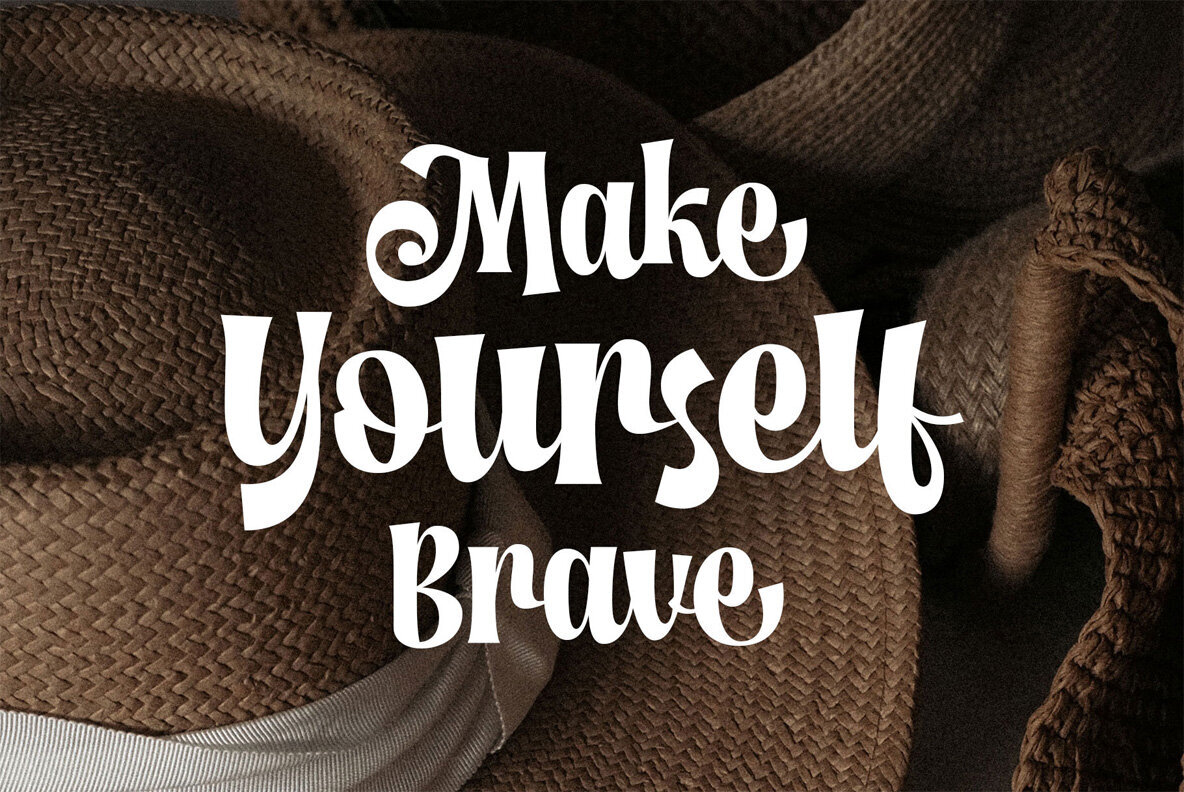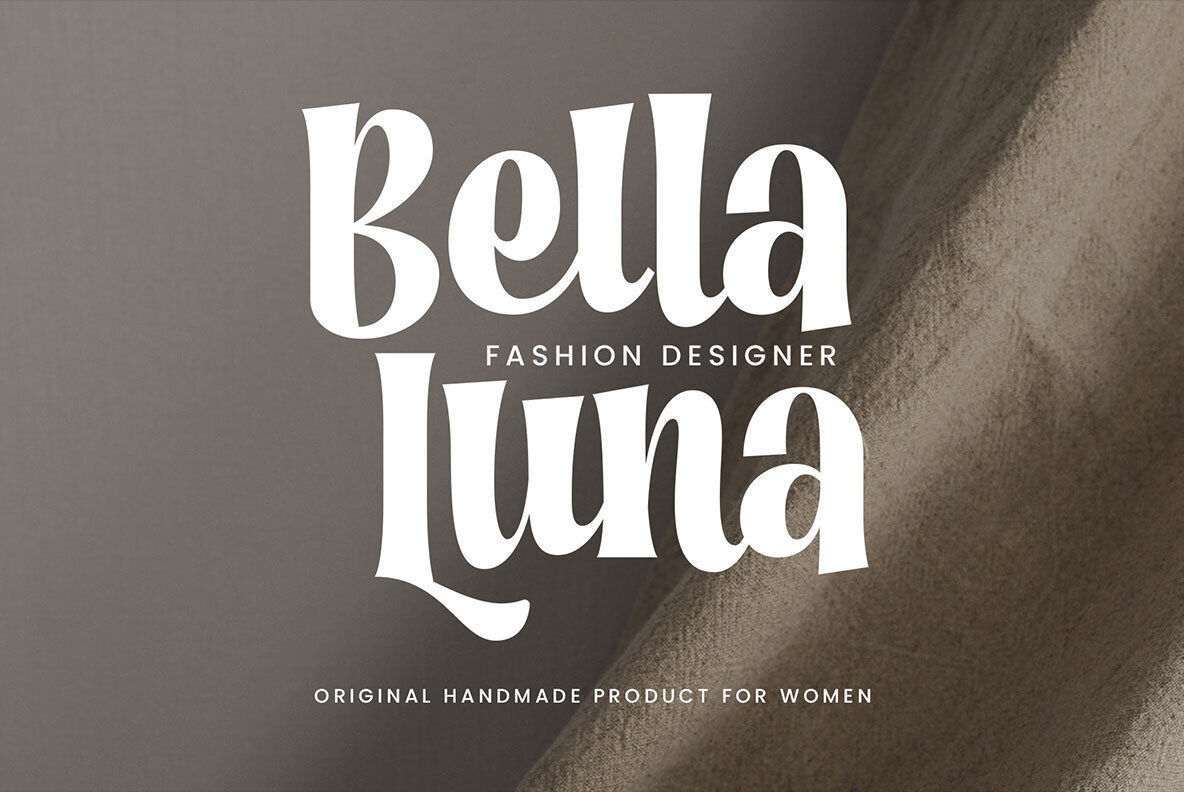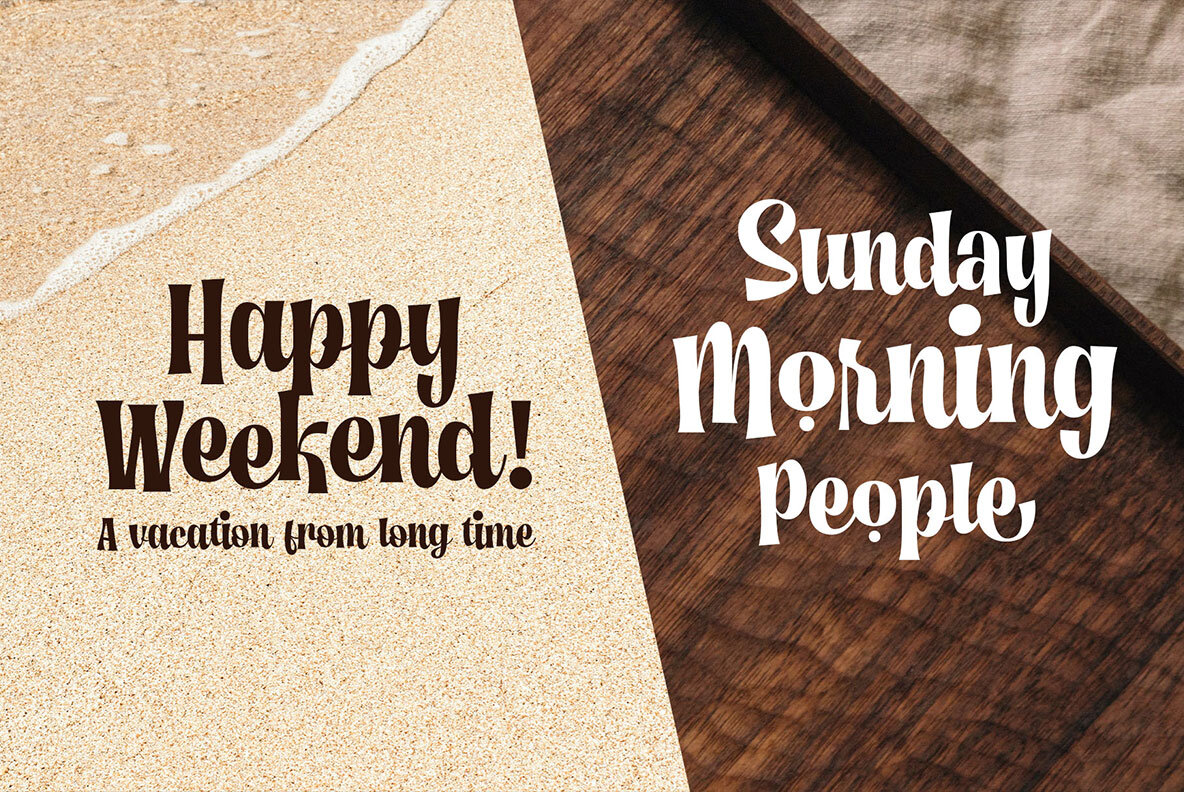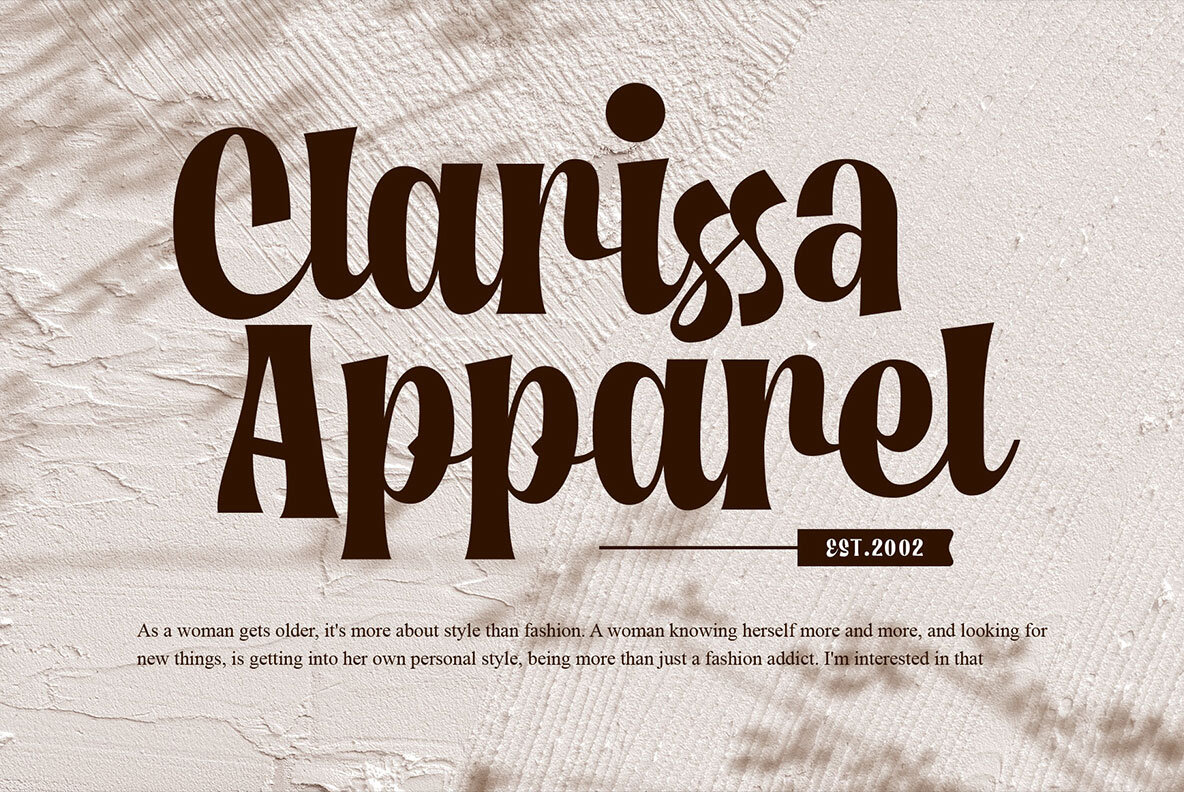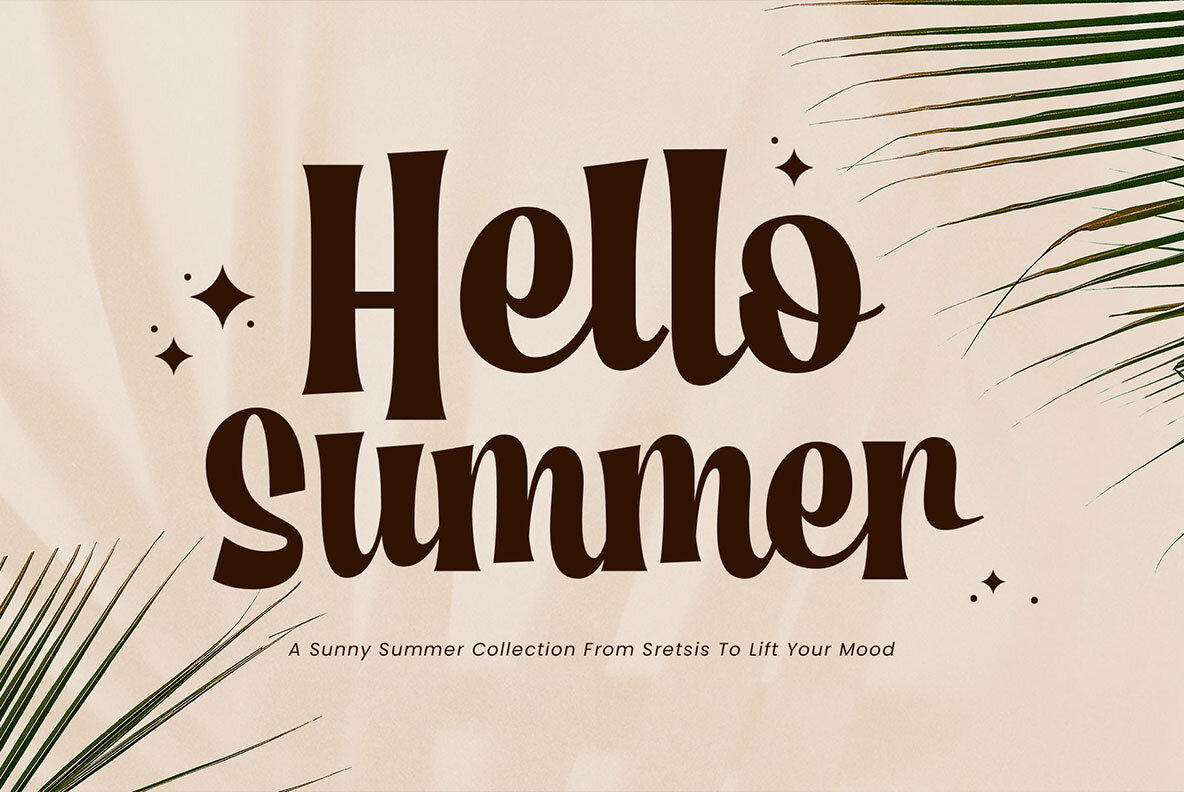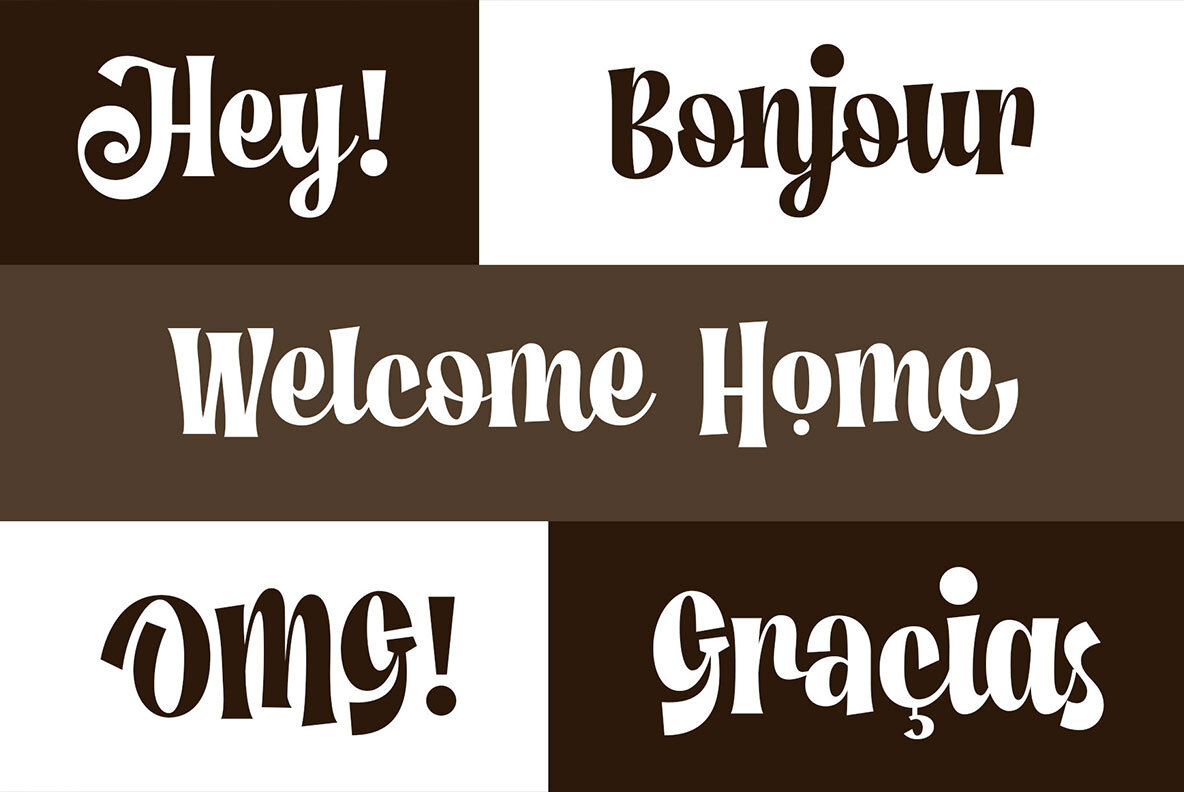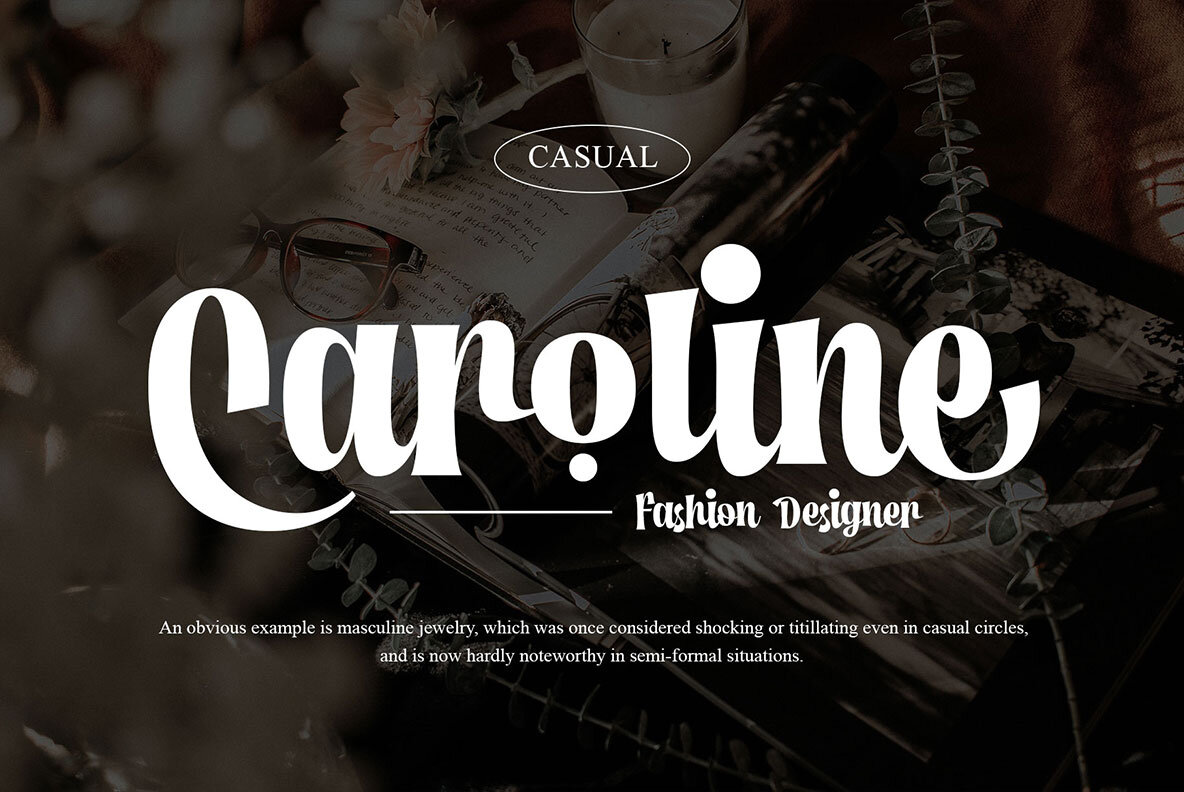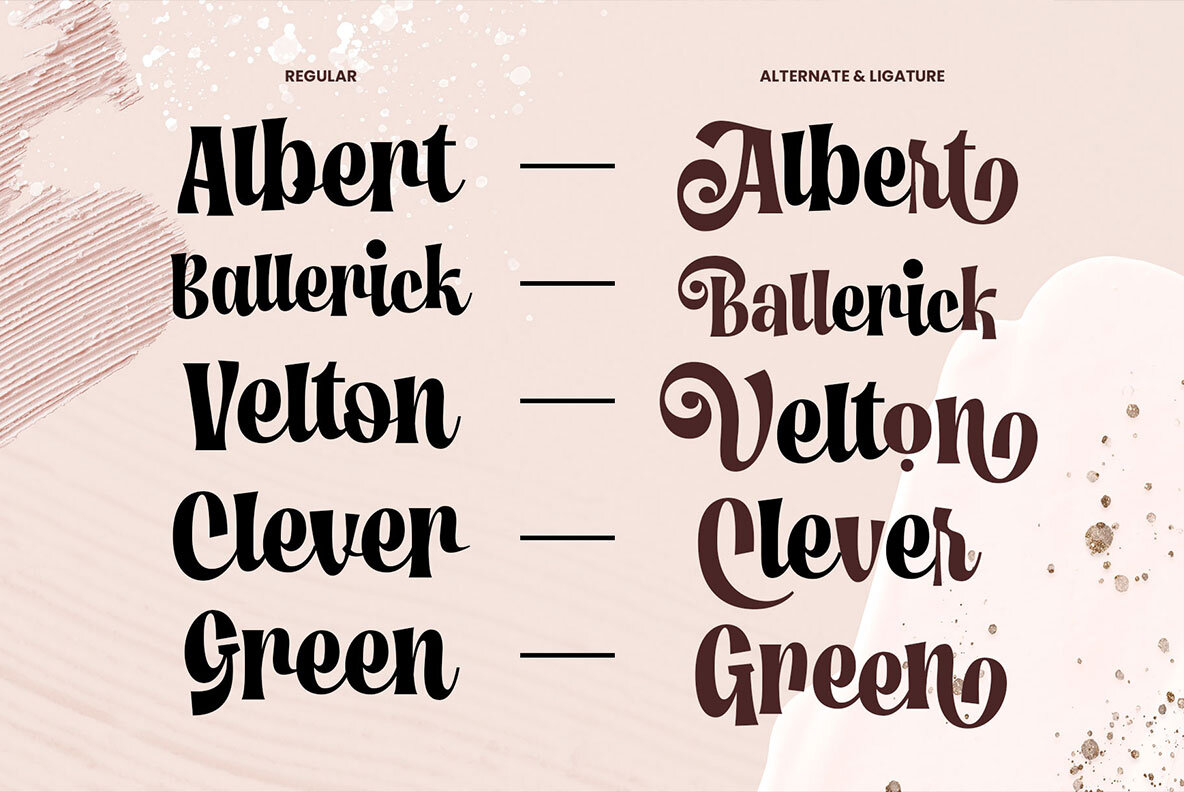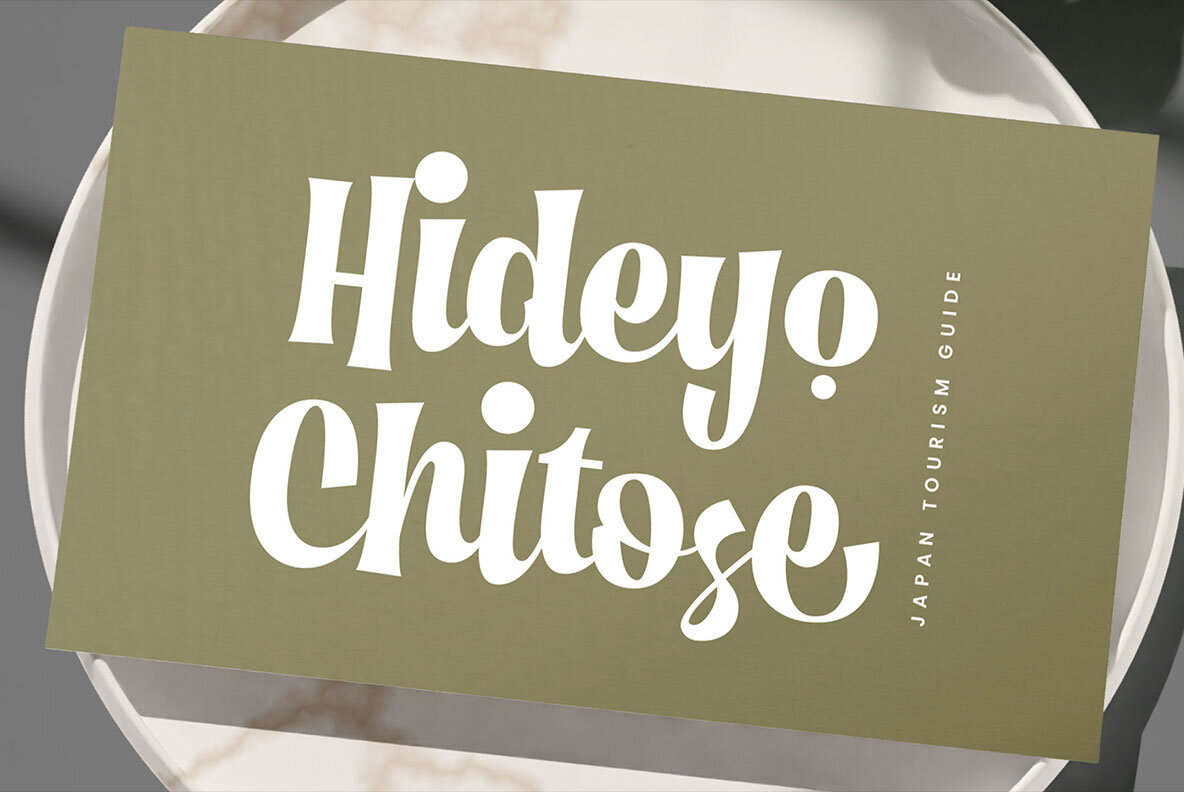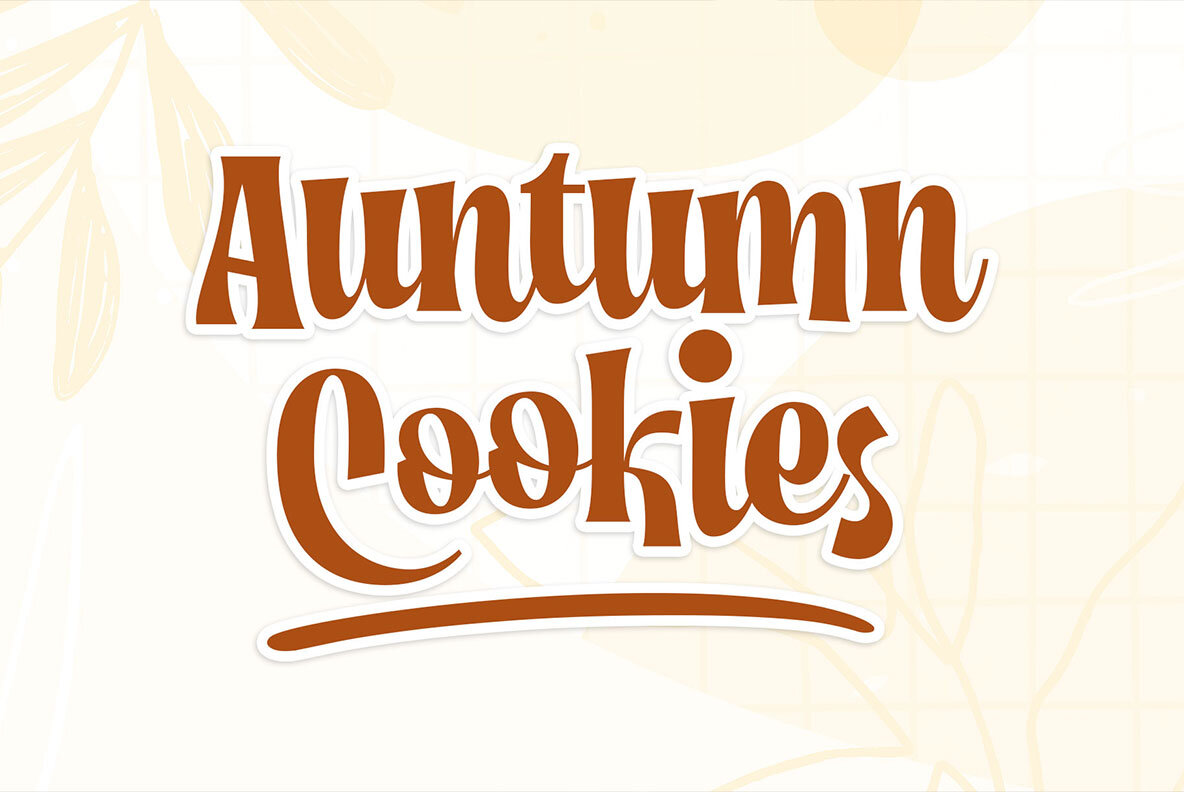
Rosiana Script Font
Rosiana Script Regular
Unveil the vibrant personality of Rosiana Script. Bold, fun, and cheerful, this typeface brings a slightly bouncy elegance to any design. Whether you're crafting headlines or designing merchandise, Rosiana Script infuses projects with a lively aesthetic that stands out. Ideal for a variety of uses, this font excels on storefronts, flyers, stickers, logotypes, and more. Its dynamic shape adds an exciting touch to any project—perfect for those seeking a professional yet playful vibe. Features:Rosiana Script: Bold and Dynamic Typeface